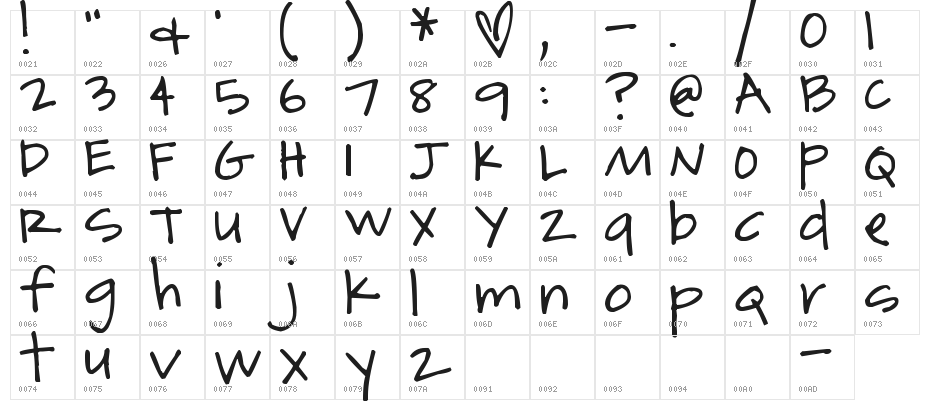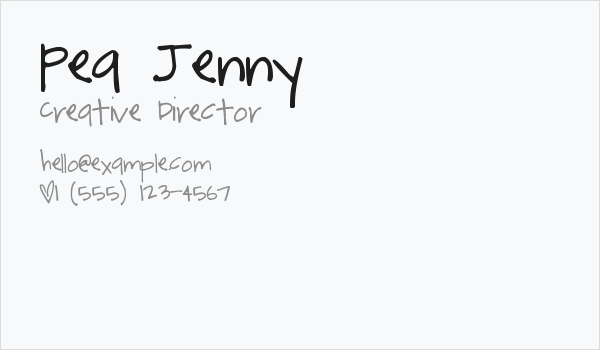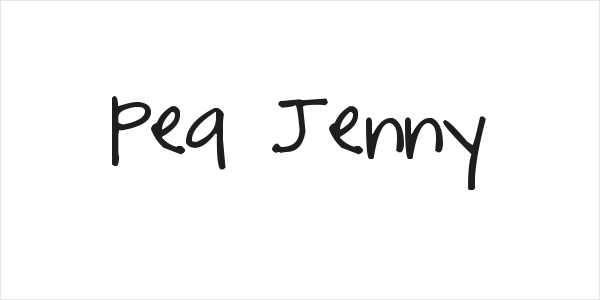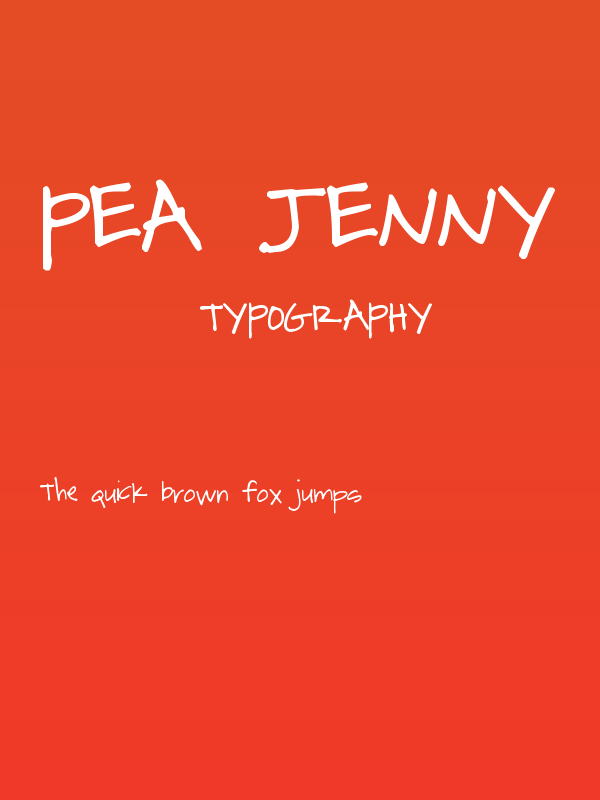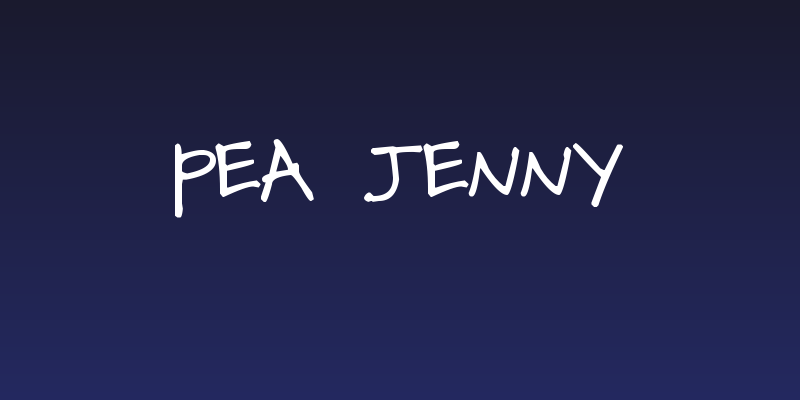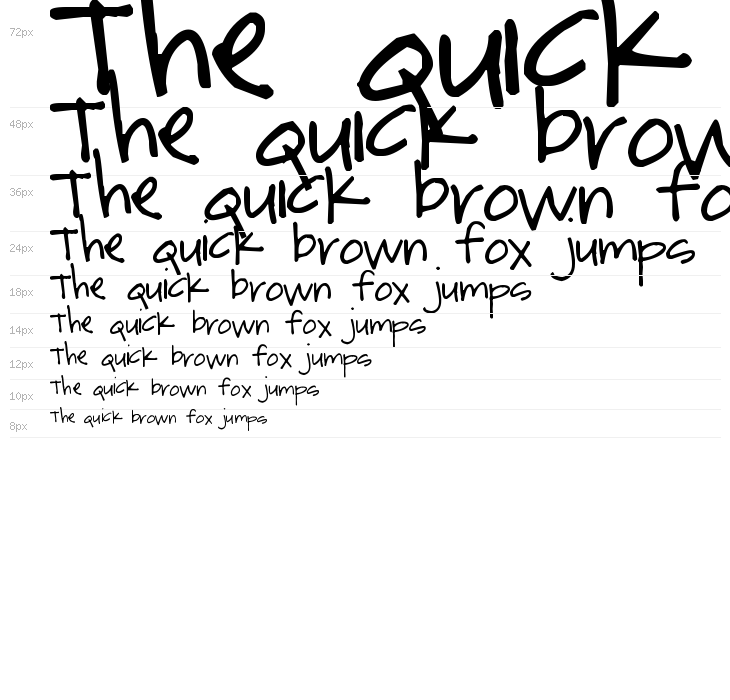
Pea Jenny Font
Pea Jenny Description
This font features a playful and casual handwritten style, characterized by its informal and friendly appearance. The letters are slightly slanted, giving a dynamic and lively feel. The strokes are consistent in width, with rounded edges that enhance its approachable nature. The uppercase and lowercase letters maintain a cohesive look, while the numbers and special characters complement the overall design. This font exudes a sense of spontaneity and creativity, making it ideal for projects that require a personal touch.
| Use Case | Logos, Headlines, Informal Text |
| Proposed Projects | Ideal for greeting cards, personal notes, children's books, and creative branding. |